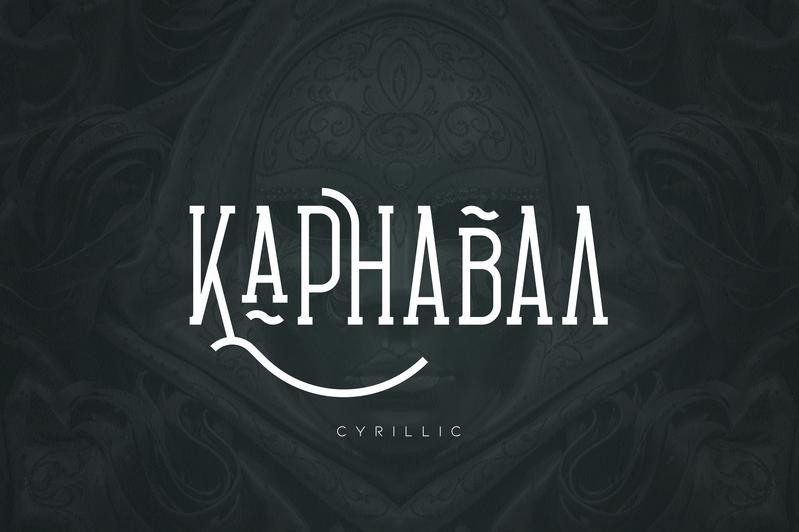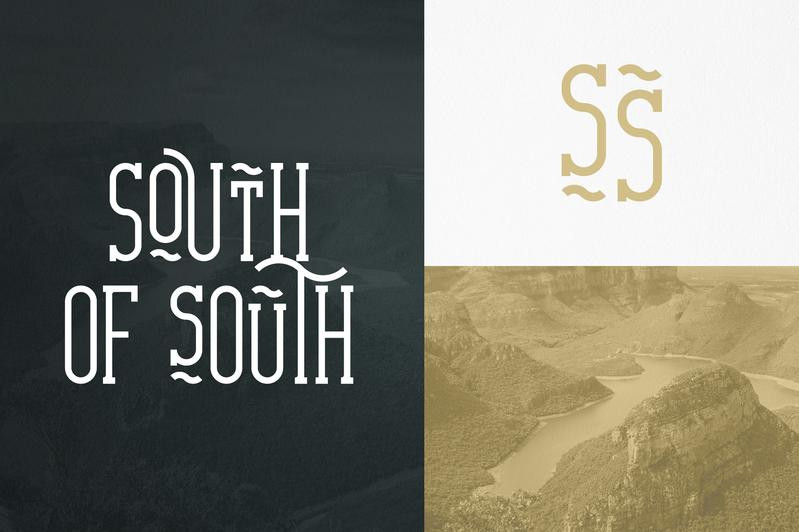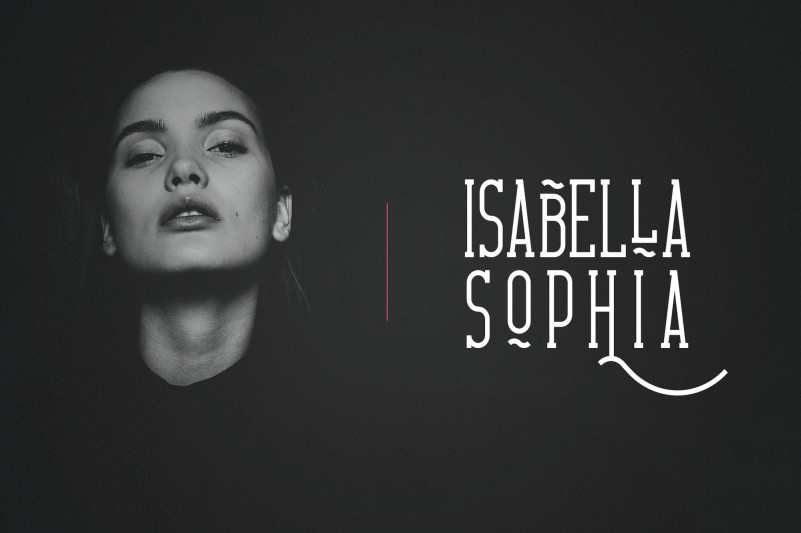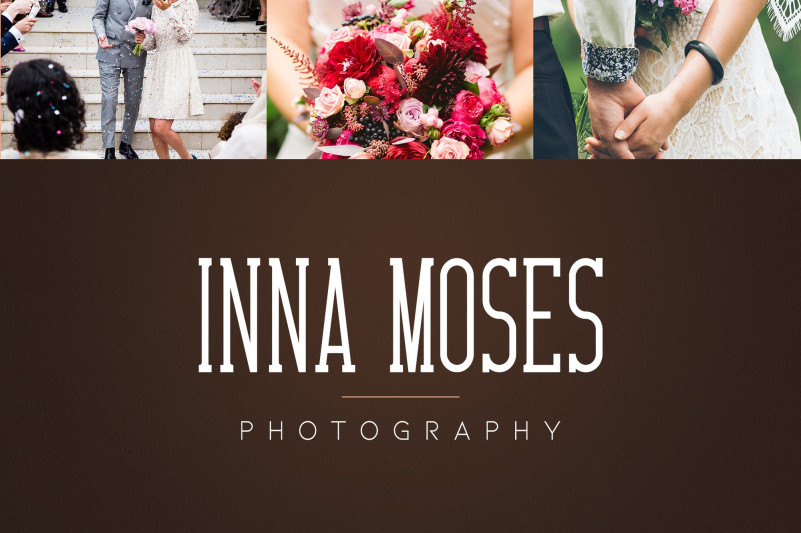
Carnival VP Slab Serif Font – Latin & Cyrillic is long, clean font with latin and Cyrillic support, tons of alternate glyphs, and multilingual support. It’s a very versatile font that works great in large and small sizes.
Carnival VP Slab Serif Font is perfect for branding projects, home-ware designs, product packaging, magazine headers – or simply as a stylish text overlay to any background image.
- Uppercase, numeral,punctuation & Symbol
- Cyrillic support – Russian, Ukrainian, Bulgarian and more
- Alternate glyphs
- Multilingual support